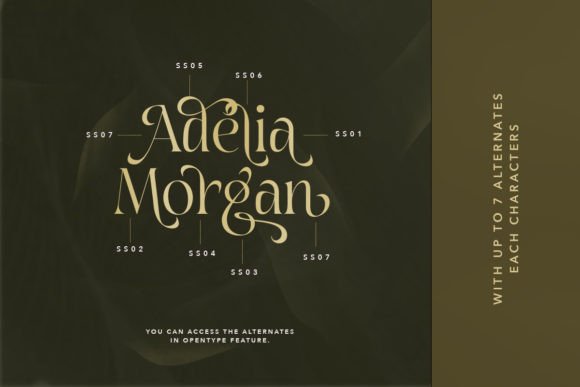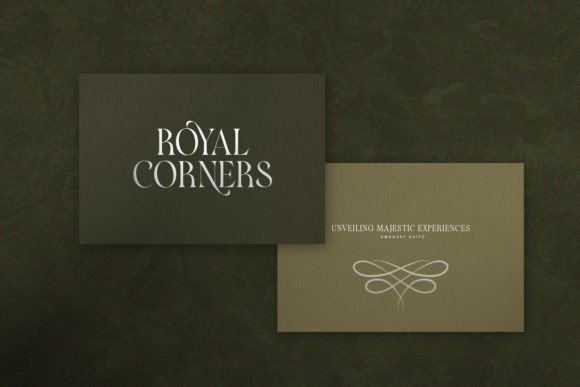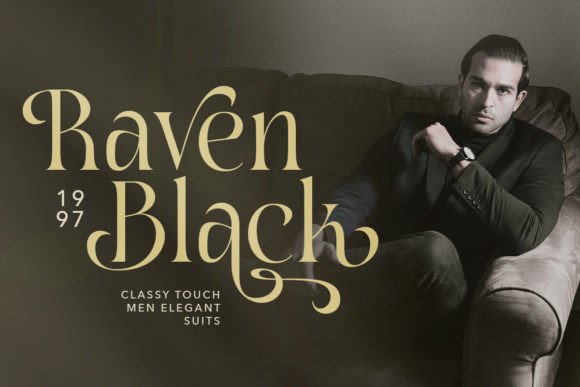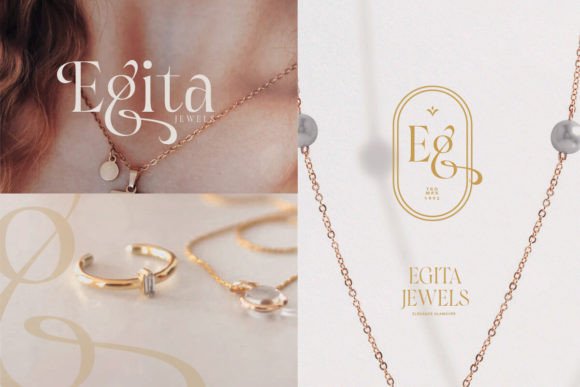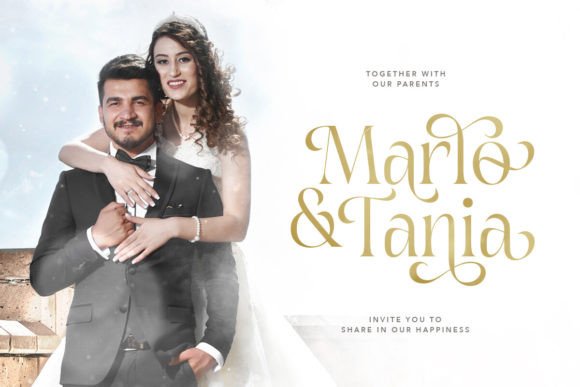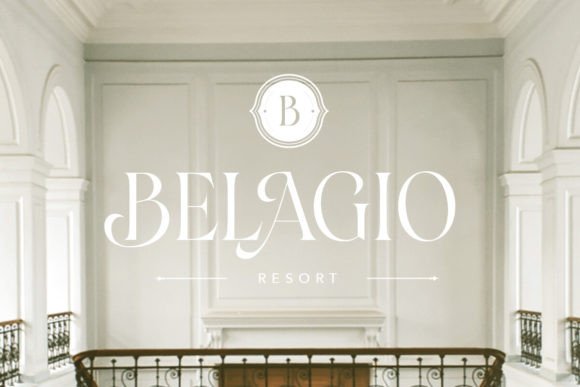
The Perfect Blend of Elegance and Sophistication: Adelia Morgan Font
You’re in the midst of a creative project, pouring your heart and soul into every detail, from the color palette to the typography. You’re looking for that one font that will elevate your design and leave a lasting impression. You’ve searched far and wide, but nothing seems quite right – until you stumble upon the Adelia Morgan Font.
This modern serif font is more than just a pretty face; it’s a versatile tool that will breathe new life into your projects. With up to 7 alternates for each character, you’ll have endless possibilities at your fingertips. Whether you’re crafting a wedding invitation, designing a logo, or building a brand, the Adelia Morgan Font is the perfect companion to help you bring your vision to life.
Adelia Morgan Font Key Features
- Size and Resolution: The font is available in 1 style with 2 weights, ranging from 400 to 700, and includes 2 resolutions: 300 DPI and 600 DPI, suitable for both on-screen and print applications.
- Unique Characteristics: Adelia Morgan Font boasts a unique blend of modern and vintage elements, featuring elegant lines, intricate details, and a touch of sophistication.
- Font Style: This font is classified as a serif font, with a classic feel that evokes a sense of tradition and timelessness.
- Scalability: The font is highly scalable, allowing it to be used effectively in various contexts, from small text to large headings, without compromising its readability or aesthetic appeal.
Adelia Morgan Font Review
I recently had the chance to work with the Adelia Morgan font, and overall, I was quite impressed with its unique features and versatility.
- The Adelia Morgan font boasts a beautiful, elegant script that’s perfect for adding a touch of sophistication to any design project.
- The font comes in a range of weights and styles, making it easy to find the perfect version to suit your needs.
- Adelia Morgan is also highly customizable, allowing you to tweak the font’s settings to achieve the desired look.
- The font may not be suitable for very small text sizes, as the script can become difficult to read at these sizes.
- Some users may find the font’s aesthetic to be too ornate or over-the-top for certain design projects.
Overall, I think the Adelia Morgan font is a great choice for designers looking to add a touch of elegance and sophistication to their projects. While it may have some limitations, its unique features and versatility make it a valuable addition to any font collection.
Adelia Morgan is a versatile font suitable for a variety of designs, including:
- Website headers and footers